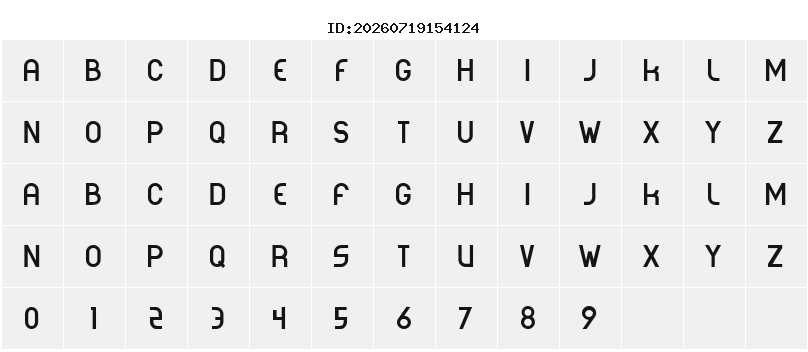
CORPOREA Preview
• Font Name: CORPOREA
• Full Font Name: CORPOREA
About CORPOREA.ttf
CORPOREA.ttf is a modern, elegant sans-serif font designed for ultimate readability and visual harmony. Perfect for branding, headlines, web design, and print materials.